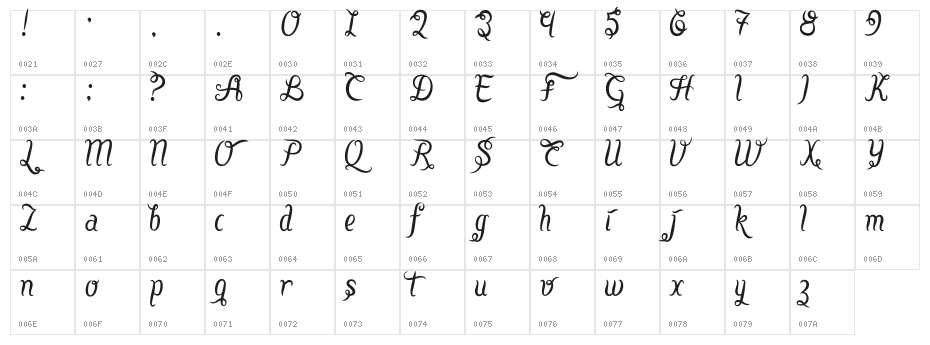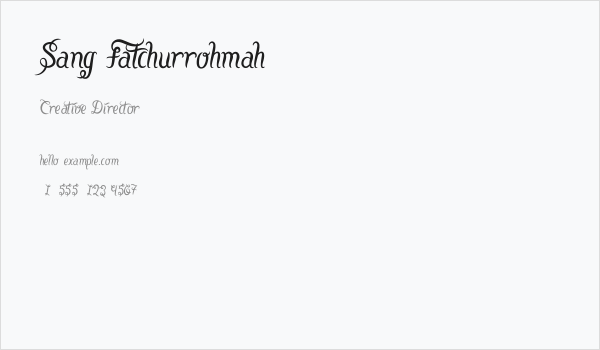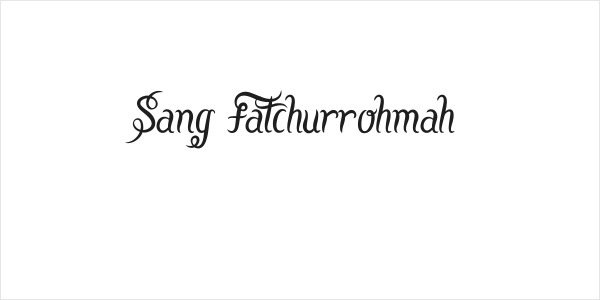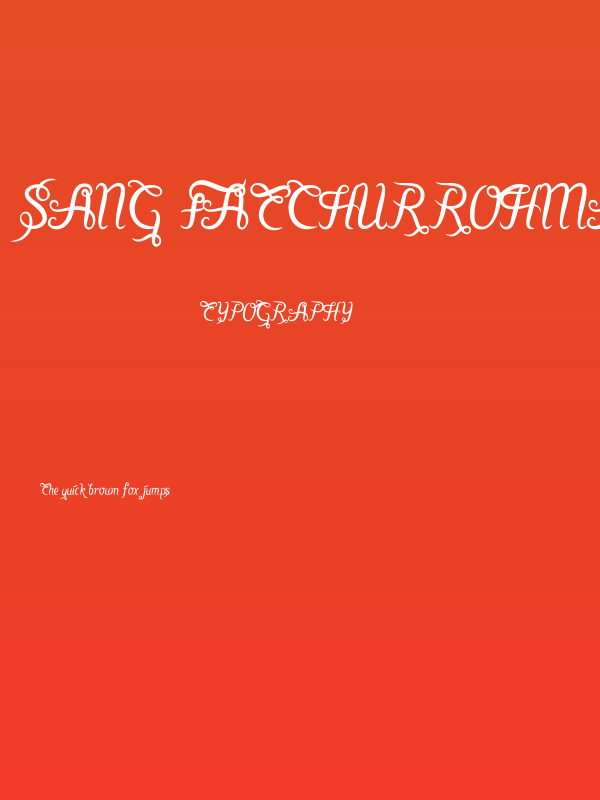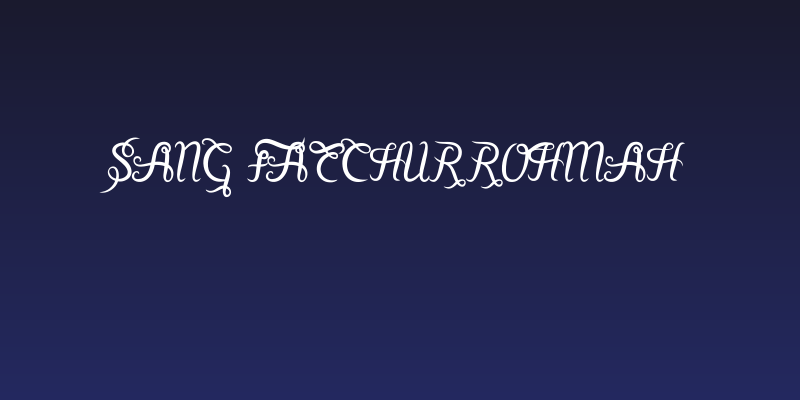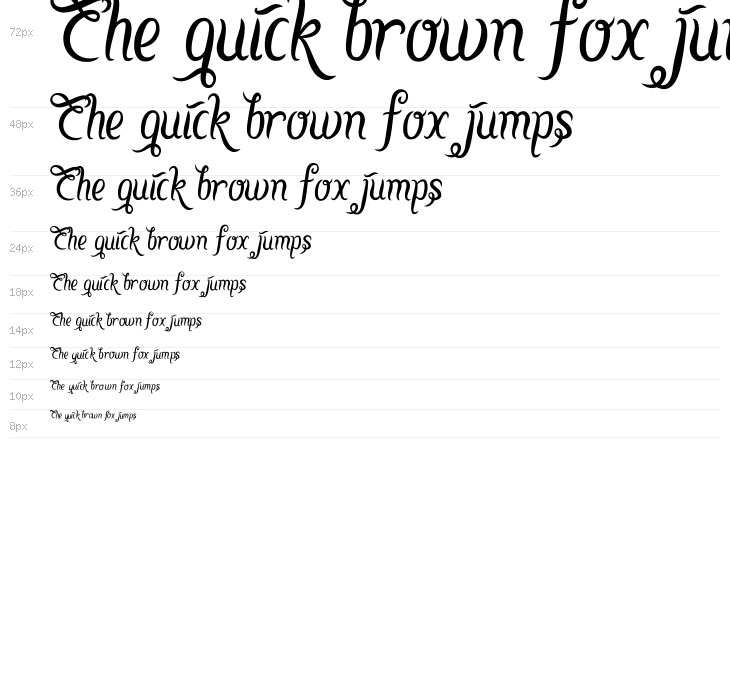
Sang Fatchurrohmah Font
Sang Fatchurrohmah Description
This font features an elegant and decorative script style with intricate loops and flourishes. The uppercase letters are particularly ornate, with sweeping curves and embellishments that give a sense of movement and grace. The lowercase letters maintain a consistent style, with a slightly more restrained design that complements the uppercase characters. The numerals are distinct and maintain the decorative theme, ensuring readability while adding a touch of sophistication. The special characters are designed to match the overall aesthetic, making this font suitable for artistic and formal applications.
| Proposed Projects | Ideal for wedding invitations, formal event programs, elegant branding, and artistic posters. |